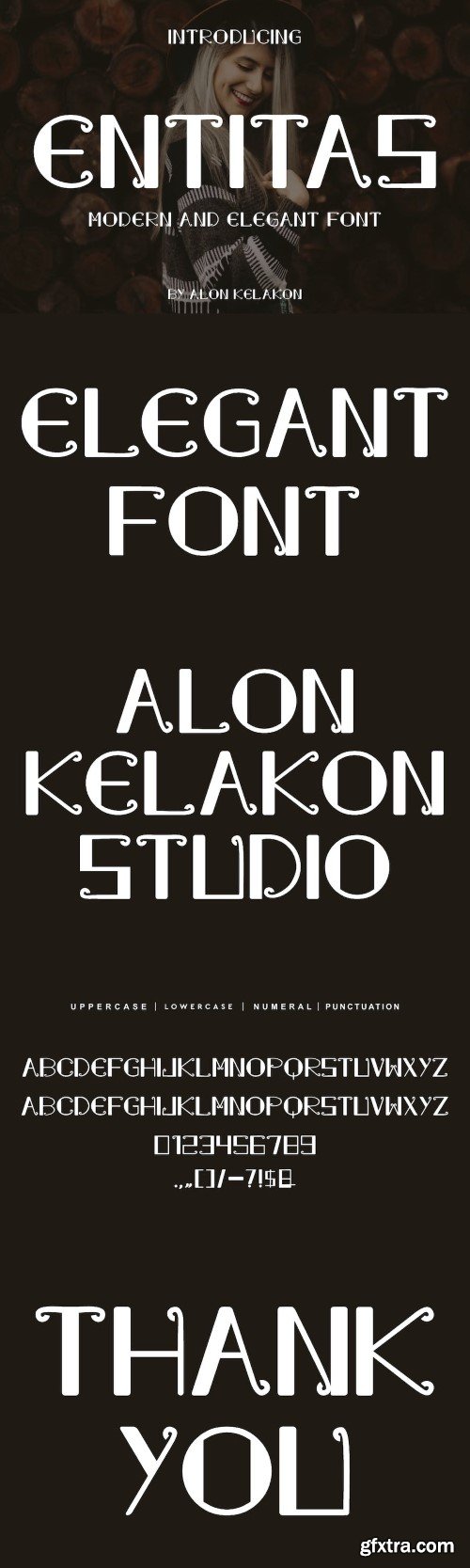
entidadas font
Entitas Font is unique . Ready to use for your design like labeling, movie sceen, poster, movie title, gigs, album covers, logos, and much more.